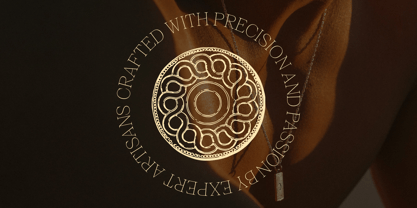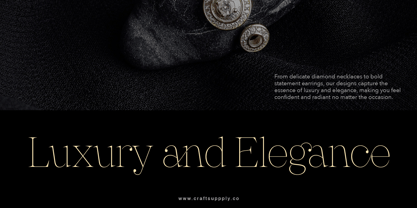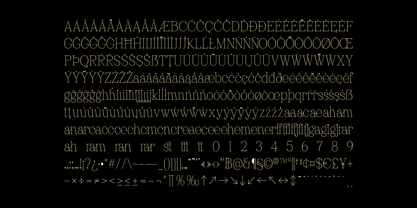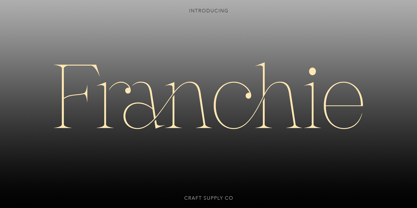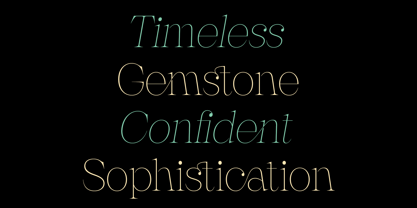
Franchie
by Craft Supply Co
The Franchie Font Family was designed by Trio Nazzar Saputra, Wahyu Hadi Yuana and published by Craft Supply Co. Franchie contains 2 styles and family package options. More about this family
Franchie is a modern elegant font features clean and minimalist design with thin strokes and unique shapes, incorporating geometric elements for symmetry and balance. This font is ideal for modern branding and advertising, exuding refinement and sophistication.
Designers: Trio Nazzar Saputra, Wahyu Hadi Yuana
Foundry: Craft Supply Co